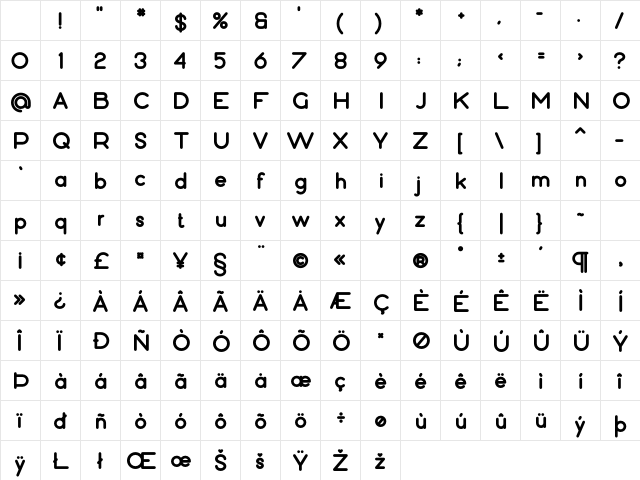
Complete Bubbble Gum Black glyph index. Displaying only characters natively supported by Bubbble Gum Black font.
Bubbble Gum is a composed and adaptable typeface that performs quietly and consistently across a wide range of design contexts.